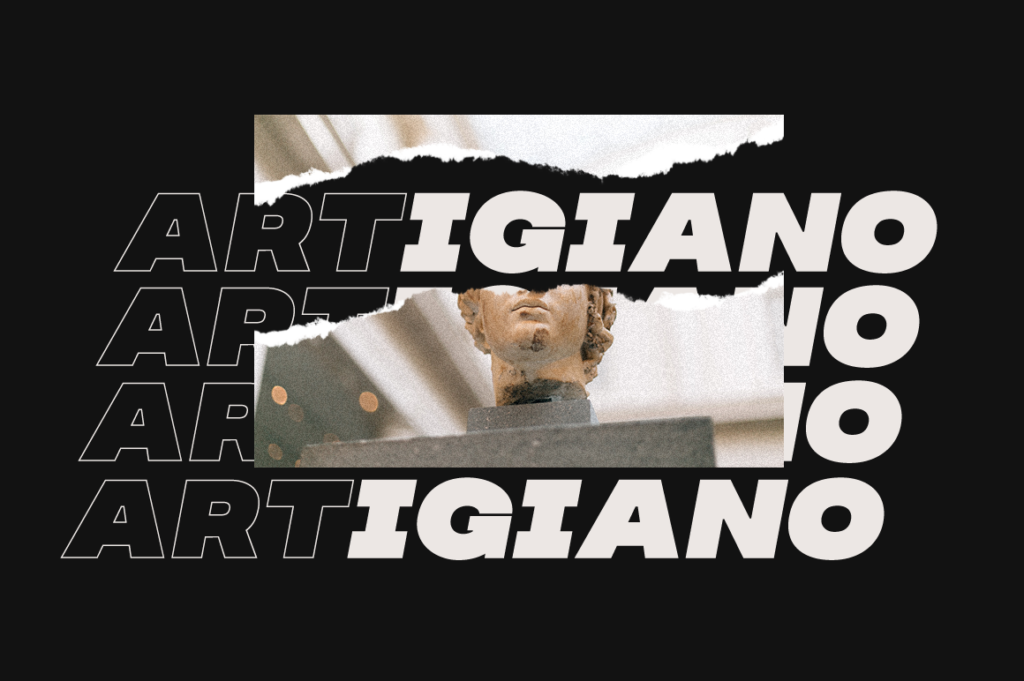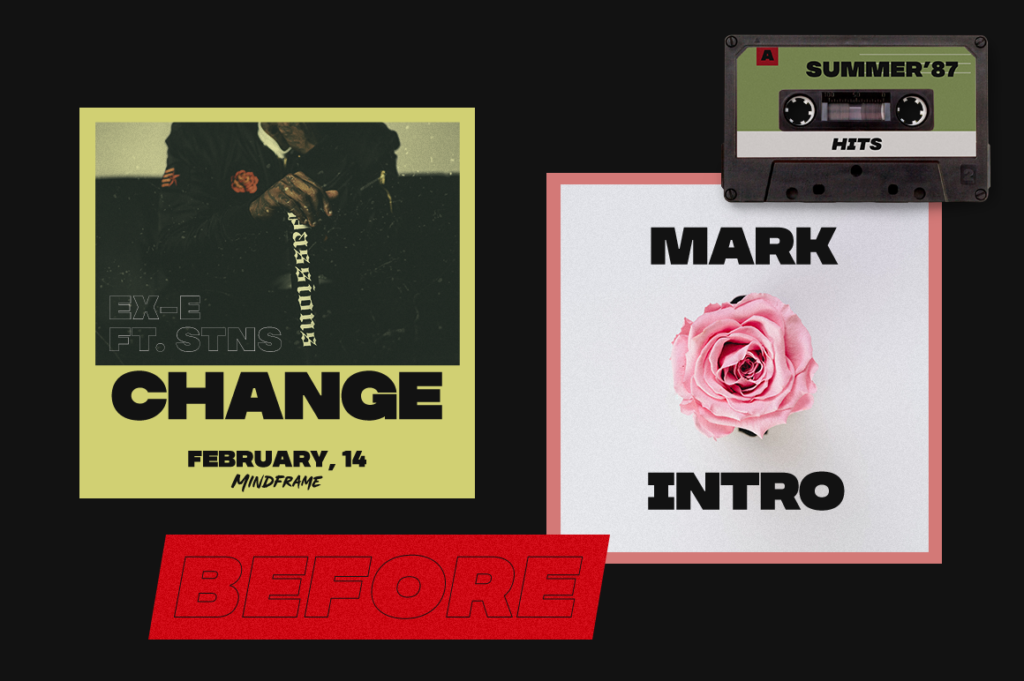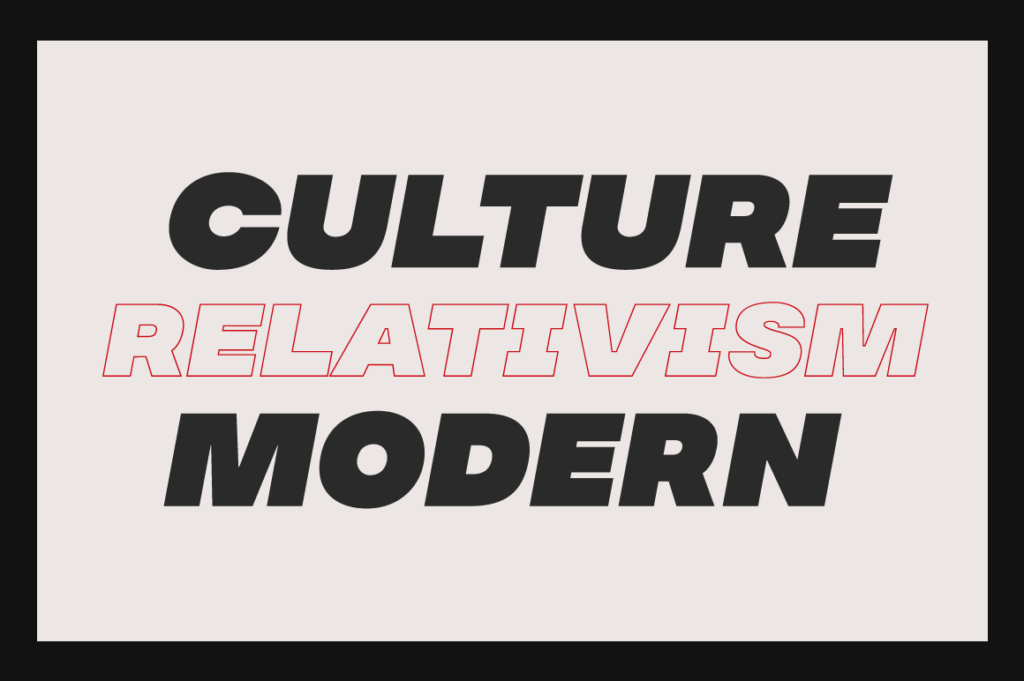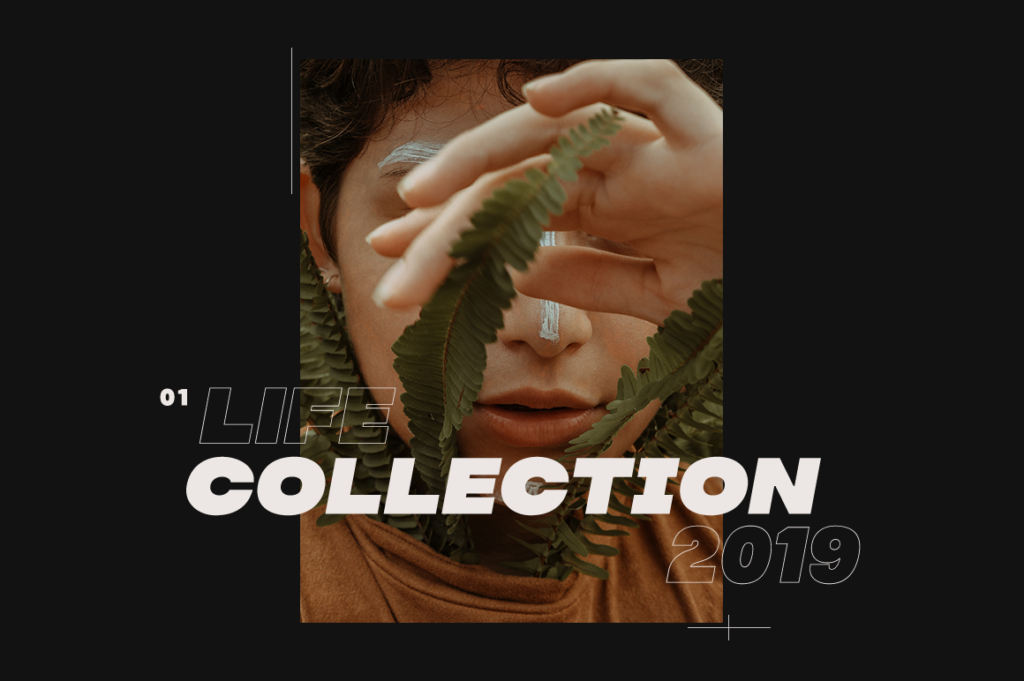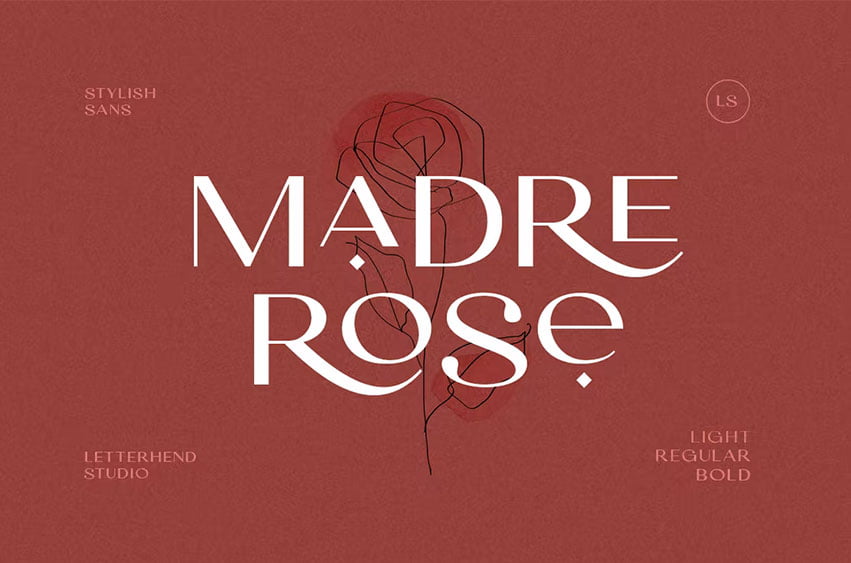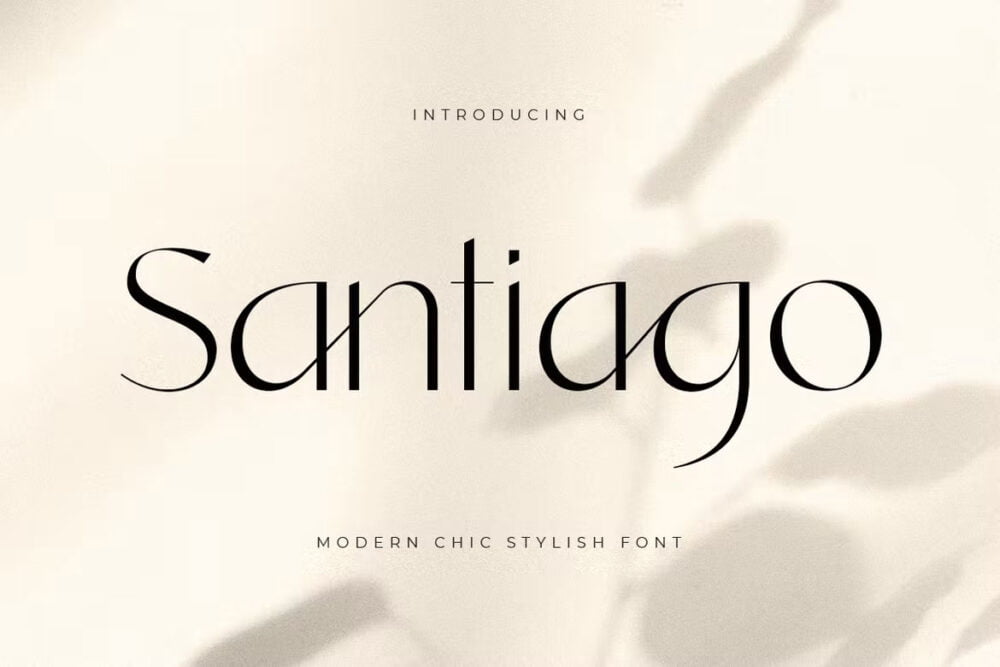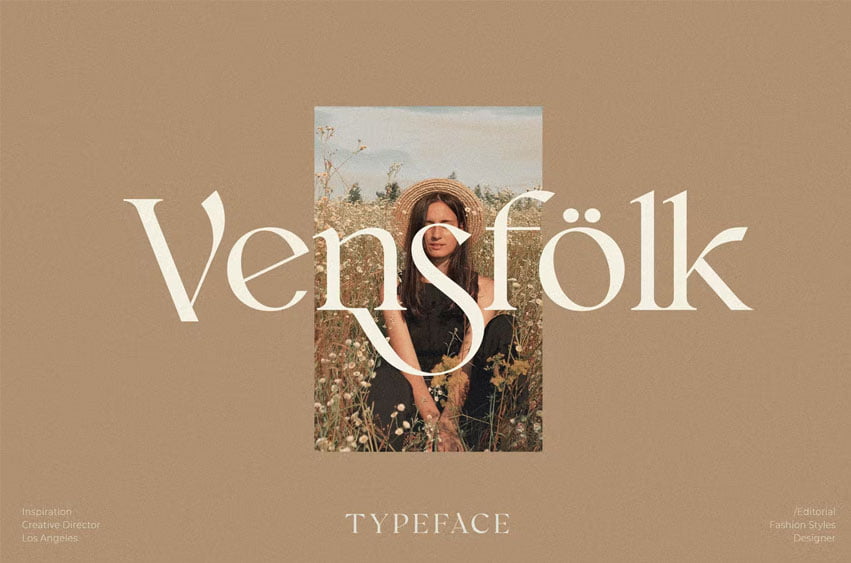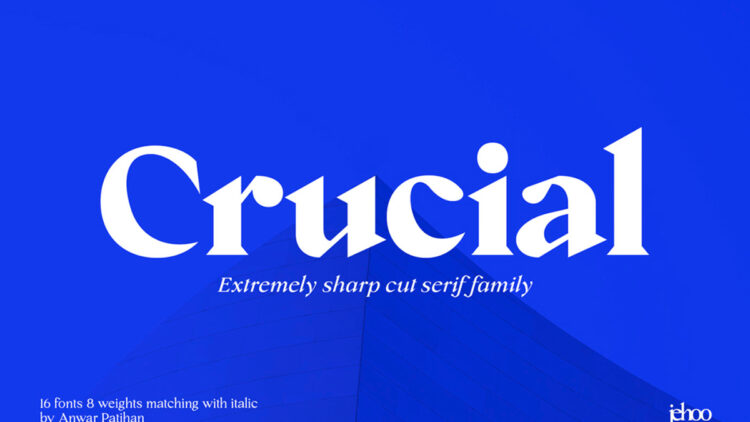
27 Best Fonts For Designers Free Download
Here in this post we have come up with a collection of best fonts for designers. This collection of free fonts for designers are available for free download. Use these greatest free creative fonts to improve your projects i.e. logo projects, template design projects, video editing, print design projects.
1. Crucial – Free Sharp Serif Font
Anwar Patihan designed Crucial, a serif typeface with a pointed tip that gives each character a bold and elegant appearance.
This typeface adds boldness and elegance to your designs with its 8 weights and each weight bundled in an attractive Italic set.
2. Kamino – Free Condensed Variable Font
Kamino typeface is a changeable condensed font with rounded corners and sharp lines and angles.
Jayanth Nune designed this font, which has a form that is more traditional in nature.
It’s a versatile font that works well for big headlines, advertising, athletic logos, and more!
3.Agrem Free Font
4.Deserta Free Font
5.Moonk Free Font
6.Liquid Pixel Free Font
7.Madre Rose Free Font
8.Vensfolk Classic Modern Free Font
9.Modern Chic Stylish Free Font – Santiago
10.Natural Script Free Font
11.Pisang Goreng Free Font
12.Classic Display Serif Free Font
13.Harshita Signature Free Font
14.Ladi – Free Typeface
15.Obituary Decorative Gothic – Free Font
16.MADE Evolve Sans
17.Soul Maze – Free Font
18.Brilliant Signature Typeface
19.Scratchy Erratic Handwritten
20.Louis Felligri Thin – Free Display Serif Font
21.Lagosi – Free Pointed Serif Font
22.Yolan Unique Font
23.Plena – Free Modern Sans Serif Font
24.Baskvrl Club – Display Serif Font
25.Slivky – Free Rounded Sans Serif Font
26.Cymbria – Free Vintage Typeface
27.Printvetica – Free Retro Letraset Typeface